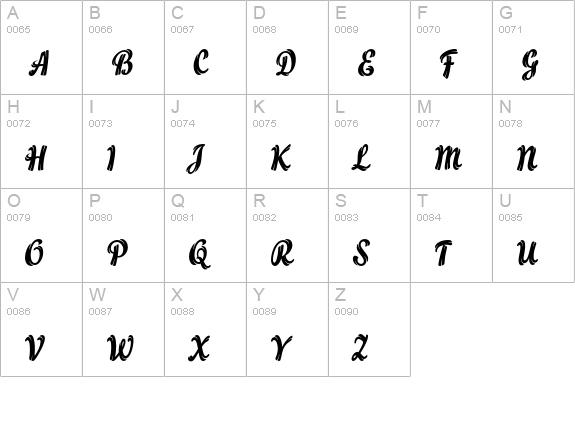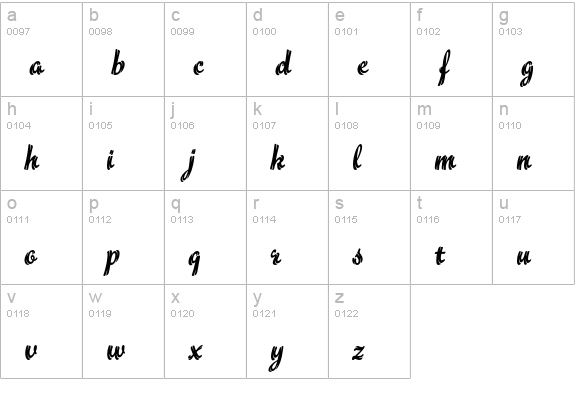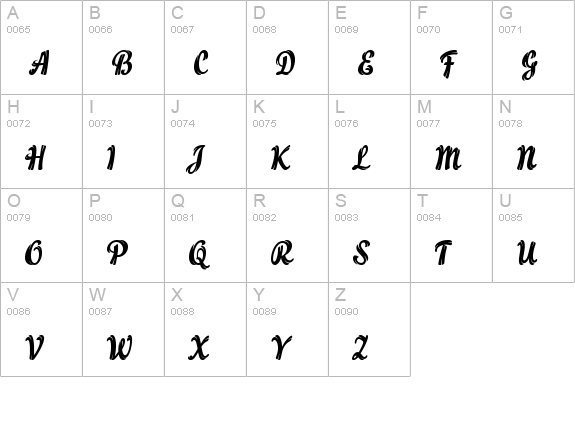
Flamme Std is a versatile and elegant font that exudes sophistication and modernity. Its sleek lines and stylish curves make it perfect for a wide range of design projects, from branding to editorial design. This font is sure to make your text stand out with its unique flair and timeless appeal. Best of all, Flamme Std is available for free download at FontsMarket.com. So why wait? Add this stunning font to your collection today and elevate your designs to a whole new level of creativity and professionalism.